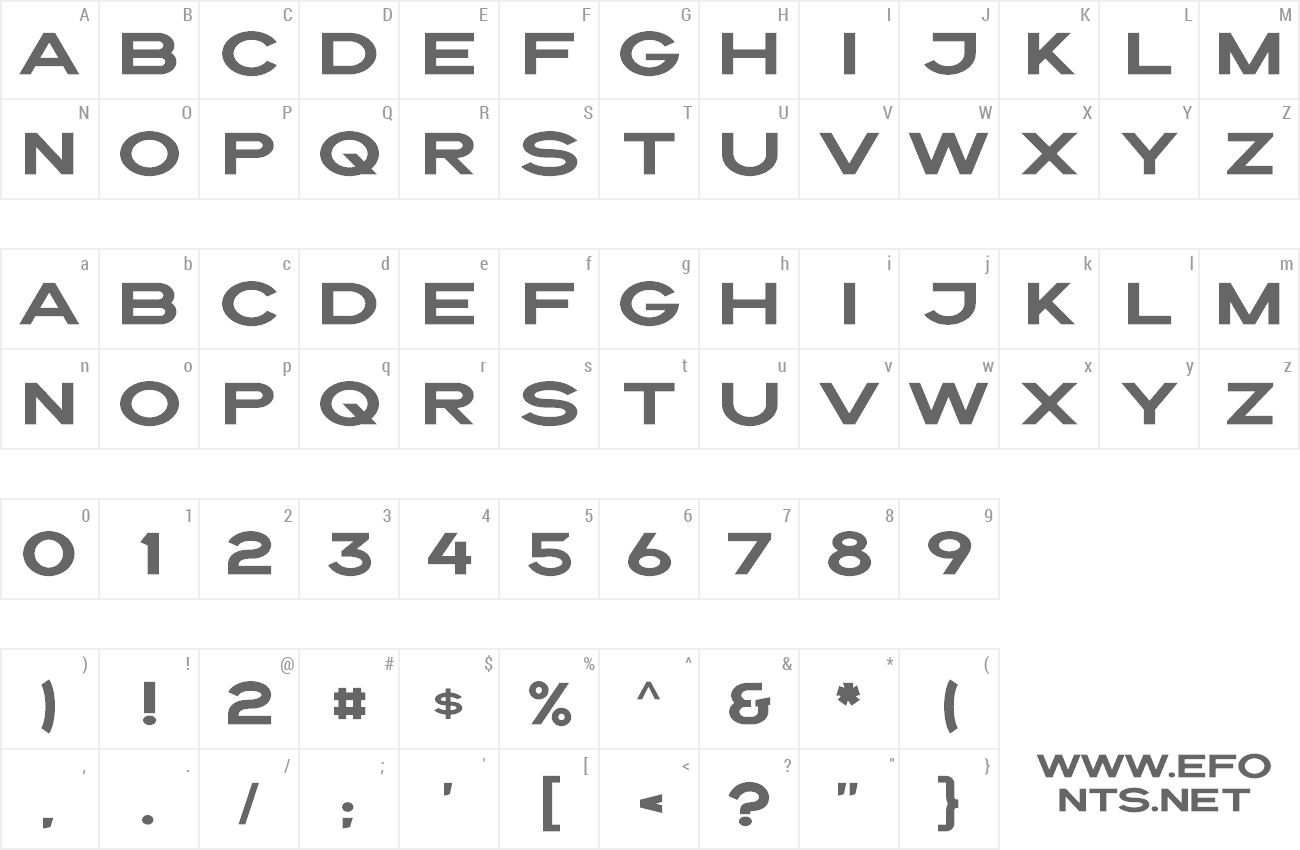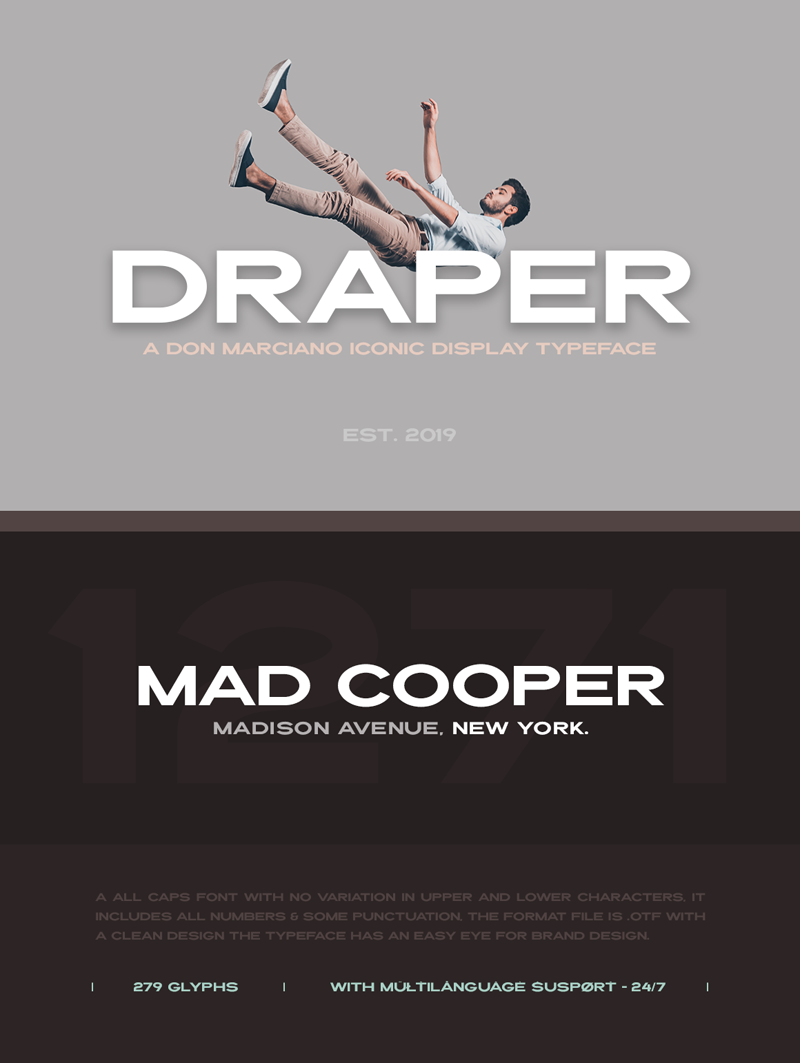
Preview and download Draper Font. Created by Don Marciano in Basic Sans serif styles with Free for personal use license.
Draper is an all caps font, it includes all numbers & some punctuation, the format file is .OTF with a clean design the typeface has an easy eye for brand design. If you need a commercial license follow the link here: http://hellodonmarciano.com/v1/license/ I�ll appreciate your support if possible, Thanks! |